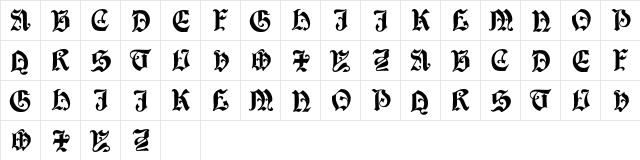
Equimanthorn Regular Font Preview
Equimanthorn Regular
Equimanthorn Regular Font Details
Design Context for Equimanthorn Typeface
Equimanthorn is a composed and adaptable typeface that performs quietly and consistently across a wide range of design contexts.